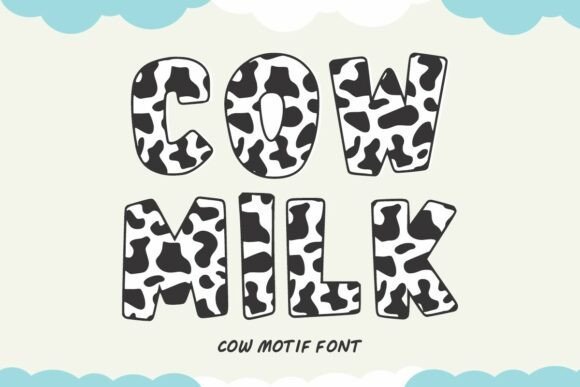
Have you ever been in the midst of a design project, staring blankly at your computer screen, searching for that elusive spark to bring your concept to life? You know, that moment when everything seems stagnant, and you’re desperate for something to shake things up?
For designers, it’s moments like these that call for a game-changer – a versatile tool that can breathe new life into even the most mundane ideas. Enter the Cow Milk Font, a striking and streamlined design that effortlessly combines a cow-inspired pattern with a bold black and white palette. This unique font is not just a pretty face; it’s a valuable asset for designers looking to inject some personality into their work.
Cow Milk Font Key Features
- Unique Characteristics: Cow Milk Font features a unique blend of modern and vintage elements, with intricate details and subtle texture, making it ideal for creative projects.
- Font Styles: The font family includes 6 different styles: Regular, Italic, Bold, Bold Italic, Outline, and Fill.
- Scalability: The font is designed to be highly scalable, making it suitable for use in various applications, from small text to large titles.
Cow Milk Font Review
First off, let’s talk about what works well with Cow Milk Font ✨. The playful, whimsical feel of this font is perfect for a dairy brand or any product that wants to evoke a sense of fun and approachability. The font’s rounded edges and soft curves make it easy on the eyes, even for long blocks of text. The font also comes in a range of weights, from light to bold, which makes it versatile for use in headings, body text, and even logos.
Here are some of the specific features that I like about Cow Milk Font ✨:
- Playful, whimsical feel
- Rounded edges and soft curves
- Range of weights (light to bold)
- Easy to read, even for long blocks of text
However, there are some limitations to Cow Milk Font ⚠️. The font may not be the best choice for a brand that wants to convey a sense of sophistication or elegance. The font’s playful feel may also be too casual for some industries or audiences. Additionally, the font may not be as legible at very small sizes or in certain digital environments.
Overall, I think Cow Milk Font is a great choice for brands that want to convey a sense of fun and approachability. While it may not be the best choice for every brand or industry, it’s a solid option for those looking for a playful, whimsical font.
The Cow Milk Font is perfect for:
- Creativity-focused designs
- Food-related branding
- Children’s educational materials
For best results, use the Cow Milk Font in conjunction with playful colors and illustrations.
Alternatives to “Cow Milk Font” for Designers
Great Vibes is a modern script font that works well for headings, titles, and quotes. It’s ideal for creating a playful and elegant look in designs, especially in the fashion and lifestyle industries. Compared to Cow Milk Font, Great Vibes has a more refined and sophisticated feel.
Pacifico is a beautiful script font that evokes a sense of relaxation and tranquility. It’s perfect for designs that require a calm and soothing atmosphere, such as wellness, travel, and food brands. While Cow Milk Font is more playful, Pacifico is more elegant and understated.
Dancing Script is a highly decorative font that adds a touch of whimsy and fun to designs. It’s suitable for headings, titles, and short paragraphs in designs that require a playful and energetic vibe. Compared to Cow Milk Font, Dancing Script is more elaborate and dynamic.
Lobster is a unique and eye-catching font that’s perfect for adding a touch of quirkiness to designs. It’s ideal for headings, titles, and short paragraphs in designs that require a bold and attention-grabbing look. While Cow Milk Font is more elegant, Lobster is more playful and eccentric.